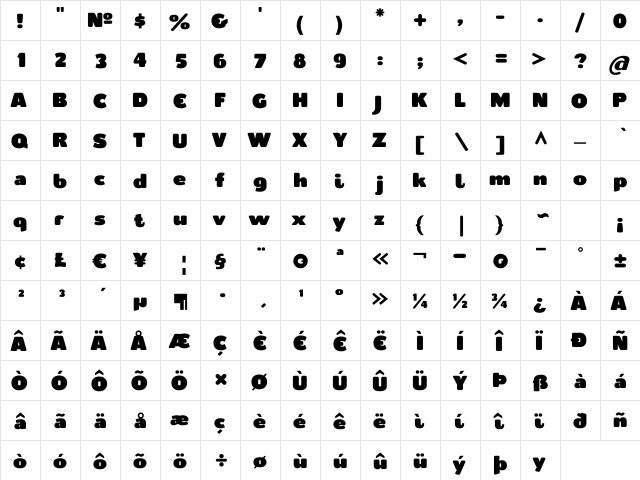
CepoRegular Regular
Design Context for CepoRegular Typeface
CepoRegular offers clean, dependable letterforms without strong stylistic allegiance, making it a practical choice for designers who need flexibility.
Pro Tip: Use CepoRegular in both headline and body roles to test its range before committing to a single application.